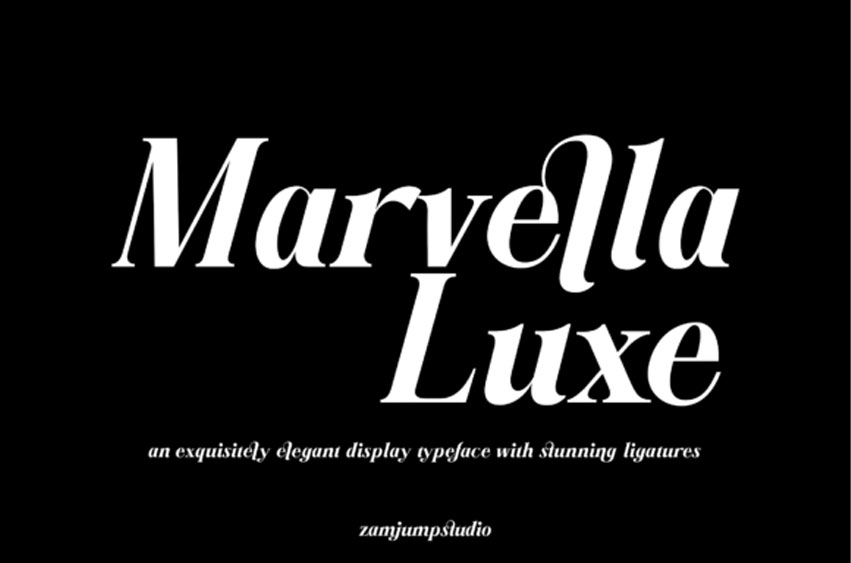
Marvella Luxe Font
Marvella Luxe Font is an exquisitely elegant serif typeface crafted for designers who seek sophistication with a bold, modern twist.
This font features stunning ligatures, refined curves, and a luxurious flow that elevates any visual composition. With its graceful letterforms and stylish spark-like accents, Marvella Luxe is perfect for branding, editorial layouts, fashion projects, packaging, logos, and high-end visual identities.
This stunning modern serif font features dramatic contrast, sharp serifs, and most notably, stunning ligatures that weave letters together for a truly bespoke, flowing appearance. The font balances classic elegance with contemporary charm, making your text feel both artistic and effortlessly premium. Marvella Luxe brings a touch of refinement to every word—captivating, expressive, and undeniably striking.
The Marvella Luxe font is a masterful blend of classic elegance and contemporary style, making it the perfect choice for high-end branding, magazine layouts, upscale event invitations, and cosmetic packaging. Its italicized appearance adds a dynamic flair, while the ligature features ensure a unique and memorable presentation. The Marvella Luxe typeface is a must-have for designers aiming to convey opulence and refined taste in their creative projects.